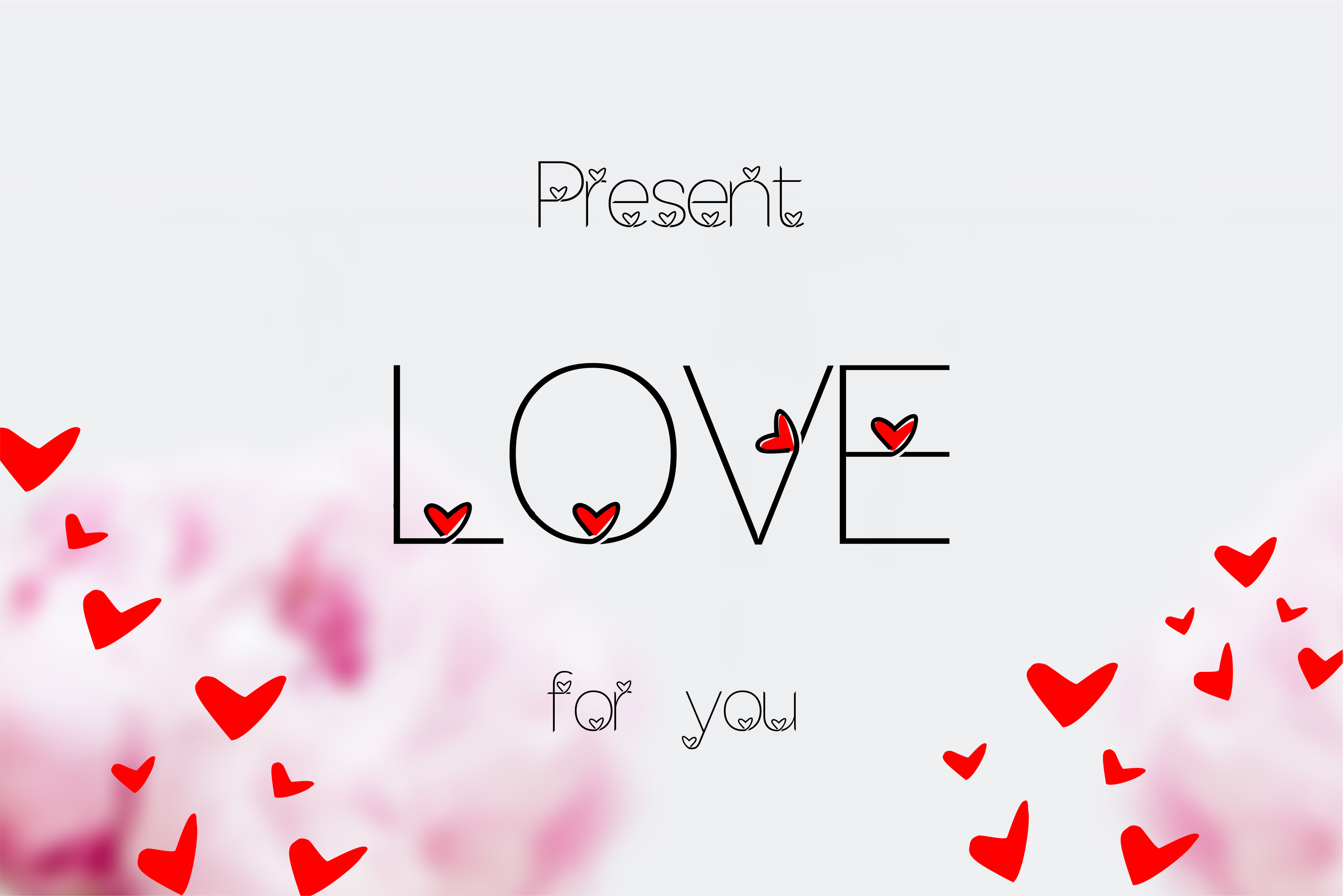
Lhove Font
Lhove font in Uppercase and lowercase letters so you'll be able to make your messages super-unique, logo, card, invitation or other related business, include otf and ttf file. for your valentine day